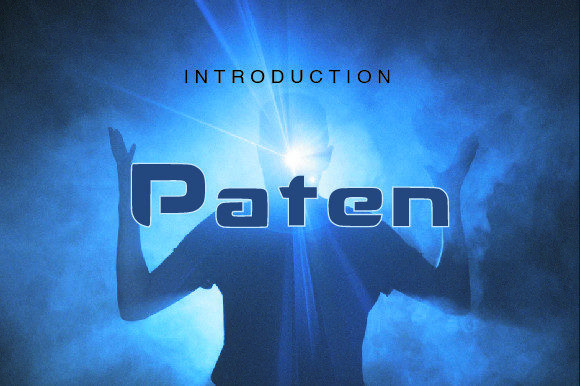
Behold the Paten Font, a modern display font that exudes boldness and elegance, ready to elevate your designs to new heights. This font is not just a collection of letters; it's a portal to a world of creativity and visual impact. Crafted with meticulous attention to detail, Paten Font is the perfect choice for businesses seeking to make a lasting impression.
In a world saturated with visual noise, it's crucial to stand out. Paten Font is your secret weapon, empowering you to create designs that demand attention and leave an indelible mark on your audience. Its sharp edges and clean lines evoke a sense of sophistication and professionalism, making it ideal for business cards, brochures, and presentations.
Unleash your creativity with Paten Font's versatility. It effortlessly adapts to various mediums, seamlessly transitioning from digital screens to printed materials. Whether you're designing a sleek website, a captivating social media post, or a striking billboard, Paten Font delivers exceptional results. Its crisp and legible characters ensure readability even at smaller sizes, ensuring your message is communicated with clarity and impact.
The font's unique personality shines through in every letterform, adding a touch of character and charm to your designs. Its techno touch, reminiscent of a futuristic landscape, adds an element of intrigue and innovation. Embrace the power of Paten Font to create designs that resonate with your audience, leaving them captivated and eager for more.